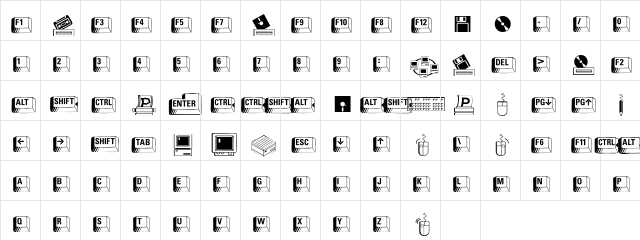
DoodleDingbatsSixSSi Regular Font Preview
DoodleDingbatsSixSSi Regular
Design Context for DoodleDingbatsSixSSi Typeface
DoodleDingbatsSixSSi is a composed and adaptable typeface that performs quietly and consistently across a wide range of design contexts.